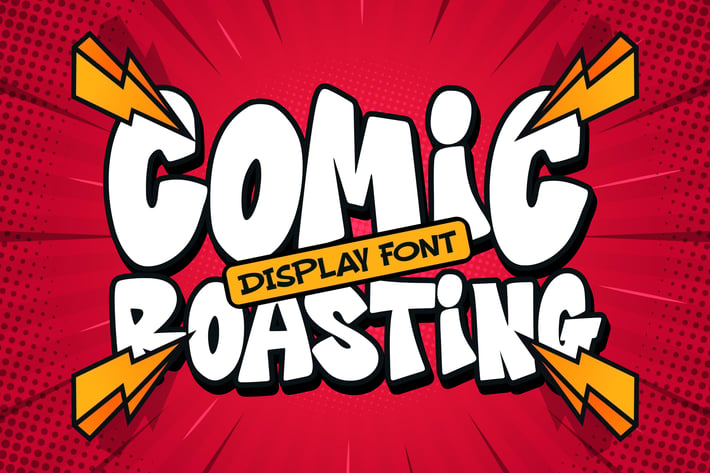
Comic Roasting - Comic Display Font
Introducing Comic Roasting – the Comic Display Font that brings a burst of fun and energy to your designs. Perfect for projects that need a lively and playful touch, Comic Roasting captures the whimsical essence of classic comic books with its bold and expressive letterforms.
🎨 Playful and Energetic: Comic Roasting brings the joy and excitement of comics to your designs. Its bold, vibrant strokes and playful style exude a sense of fun and creativity, making it ideal for any project that needs a cheerful and engaging look.
💥 Dynamic and Expressive: With its strong and animated design, Comic Roasting captures attention. The font’s thick and lively letterforms ensure your text stands out, making it perfect for headlines, posters, and branding that require a dynamic statement.
🌆 Classic Comic Charm: Whether you're designing for children’s books, comic strips, or playful advertising, Comic Roasting adapts effortlessly. Its comic-inspired style makes it suitable for a wide range of applications, adding a nostalgic yet fresh comic vibe to your work.
🔥 Eye-Catching Appeal: Comic Roasting’s bold and spirited look captures the essence of dynamic comic art. The font's distinctive character ensures your message is conveyed with maximum impact, leaving a lasting impression on your audience.
🚀 Versatile for Various Projects: From book covers and apparel to digital graphics and social media posts, Comic Roasting excels in any context. Its playful comic aesthetic enhances your designs, making them resonate with the fun and excitement of comic culture.
Bring the joy of comics to life with Comic Roasting – the Comic Display Font that enlivens your designs. Perfect for adding a playful and dynamic touch to any project, Comic Roasting is your go-to font for creating vibrant and engaging text that truly stands out.